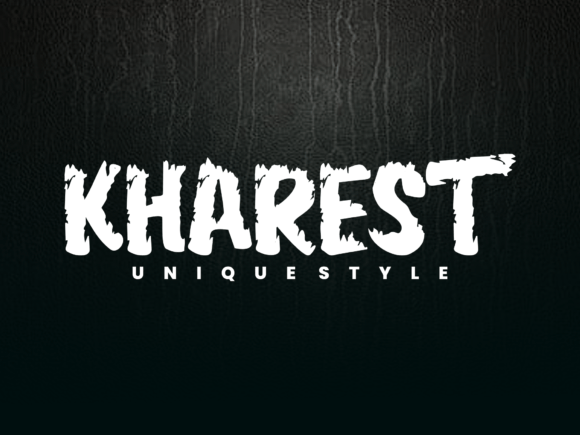
Kharest Font
Dive into a world of digital magnetism with Kharest, the display font that radiates power and captivates audiences. Its bold lines and self-assured presence transform words into unforgettable statements. Unleash the potential of your projects with Kharest –– the font that commands attention and leaves a lasting impact.
Kharest's meticulously crafted letters, each a masterpiece of digital artistry, evoke a sense of strength and authority. Its assertive strokes and commanding presence make it the perfect choice for projects that demand attention and demand respect. Whether you're crafting captivating headlines, designing striking logos, or creating social media posts that demand to be noticed, Kharest delivers the impact you crave.
With Kharest, you'll find new levels of creative freedom. Its distinct style and unwavering confidence break the boundaries of ordinary fonts. Embrace the boldness, channel your inner power, and let Kharest elevate your designs to unprecedented heights. Stand out, be remembered, and leave an indelible mark on your audience.
Kharest is more than just a font. It's a revolution in digital expression. A gateway to unlocking your full creative potential. With each keystroke, Kharest breathes life into your words, transforming them into powerful visual statements that resonate with viewers on a profound level. It's the font that empowers you to make a statement, to be heard, and to leave an imprint that lingers long after the page is turned.
Join the ranks of design visionaries who have embraced Kharest's magnetic allure. Let its bold lines and commanding presence fuel your creativity, propelling your projects to new heights of success. Kharest isn't just a font; it's a force to be reckoned with –– a catalyst for digital dominance. Unleash its power today and witness the transformative impact it brings to your designs.